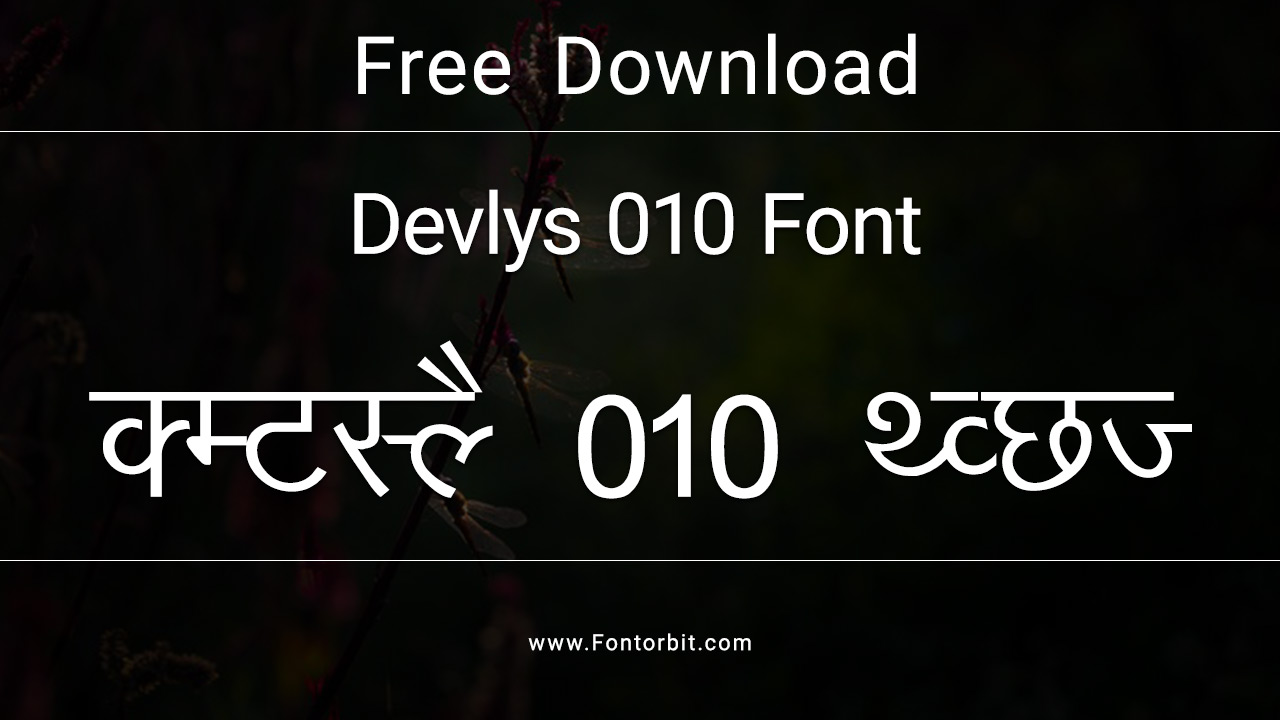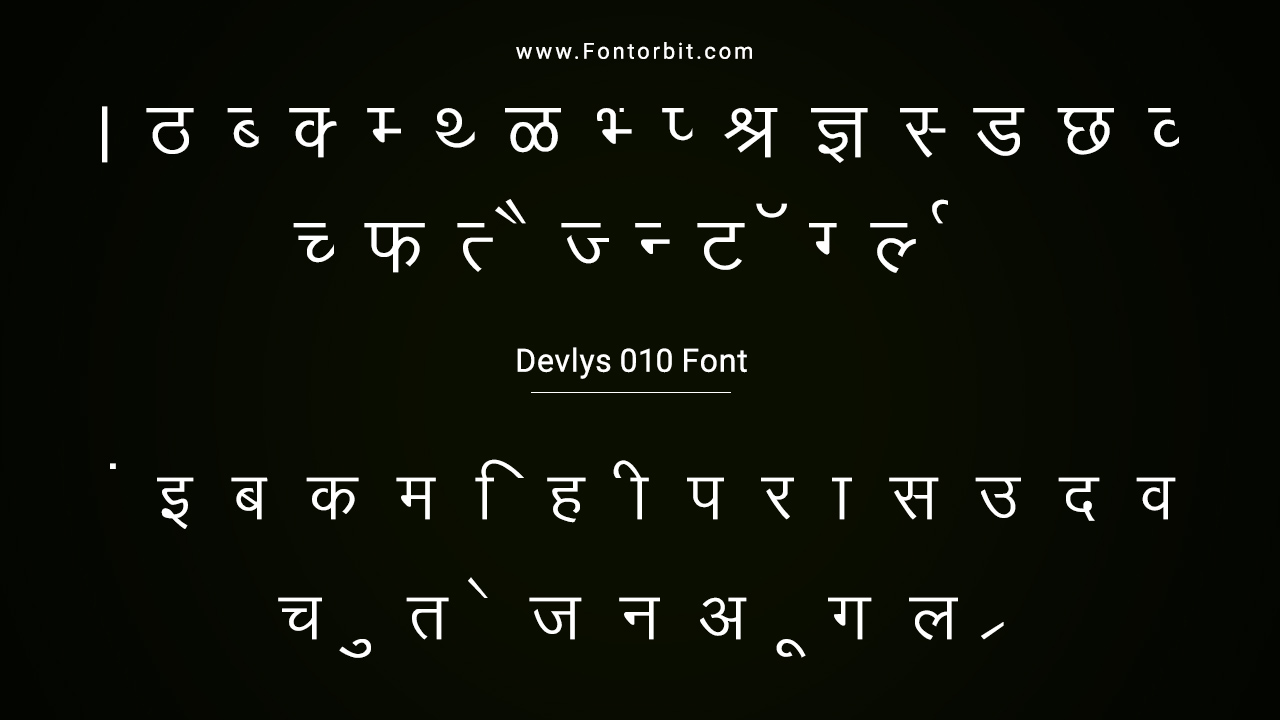
Devlys 010 is a TrueType font that utilizes the Devanagari script, making it an essential choice for Hindi typists and professionals. Its clean lines and professional appearance have made it a popular option for a variety of applications, from official documents and government forms to educational materials and presentations.
The Devlys 010 font is part of a broader DevLys font family, renowned for its versatility in professional and personal uses. This font is especially compatible with various applications, including word processing and presentations.
Notable Uses Of Devlys 010 Font
DevLys 010 is one of the most commonly used Hindi fonts, especially in professional and governmental settings in India. Its compatibility with the Remington typewriter keyboard layout makes it highly preferred by Hindi typists, stenographers, and clerks. Below are some notable uses of the DevLys 010 font:
- Government and Official Documents
- Typing and Stenography Exams
- Public Service Commission Exams
- PowerPoint Presentations
- Legal and Administrative Forms
- Media and Content Creation
- Educational Materials
DevLys 010 is a versatile font that works well in various contexts, particularly for those needing a professional or official Hindi font. Here are some ideal scenarios where you can use DevLys 010:
- Typing and Stenography Exams
- PowerPoint Presentations
- Educational Materials
- Hindi Content Creation
- Legal Forms and Contracts
- Newsletters and Publications
Devlys 010 has established itself as a go-to Hindi font, particularly among professionals, due to its compatibility with the Remington keyboard layout. Its widespread adoption across various sectors, such as government offices, typing schools, and PowerPoint presentations, speaks volumes of its usability and reliability. Whether you’re preparing documents or designing templates, this font is a solid choice.
1.What Is Devlys 010 Used For?
It’s widely used for typing exams, official documents, and PowerPoint presentations.
4.Can I Use Devlys 010 For Professional Purposes?
Yes, it’s suitable for professional documents and presentations.
7.Does Devlys 010 Support All Devanagari Characters?
Yes, it supports characters used in the Devanagari script.